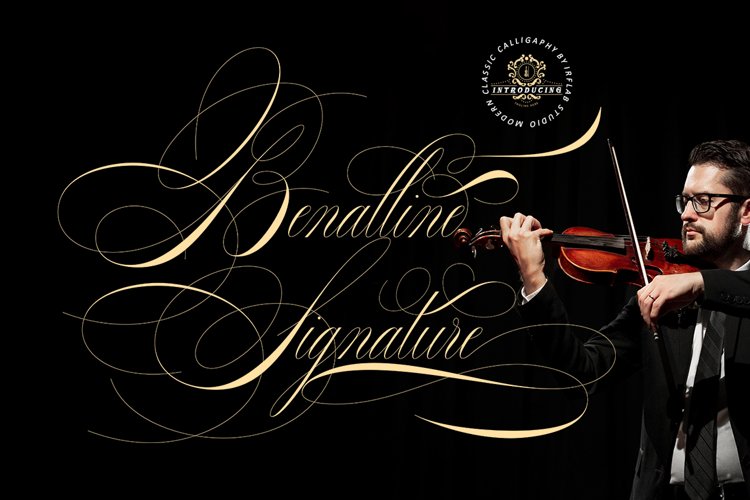
Benalline Signature
Banalline Signature feels incredibly elegant and flowing. It looks stunning on wedding invitations, thank you cards, quotes, greeting cards, logos, business cards and every other design which needs a handwritten touch. It features a varying baseline, smooth lines, gorgeous glyphs and stunning alternates.
Benalline Signature Features :
• Multilanguange
• Alternates
• Swash
• PUA Encoded